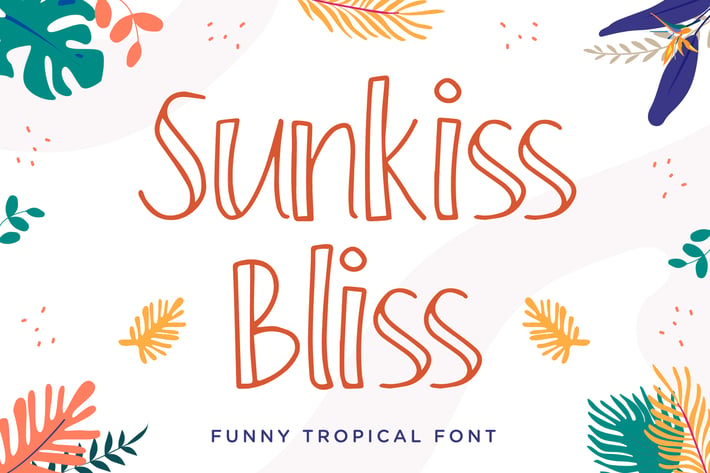
Sunkiss Bliss – Funny Tropical Font
Sunkiss Bliss is a summer-themed outline tropical font.
It can be used for various purposes such as quotes, descriptions, mug, invitation, letterhead, signage, labels, news, posters, badges and so much more.